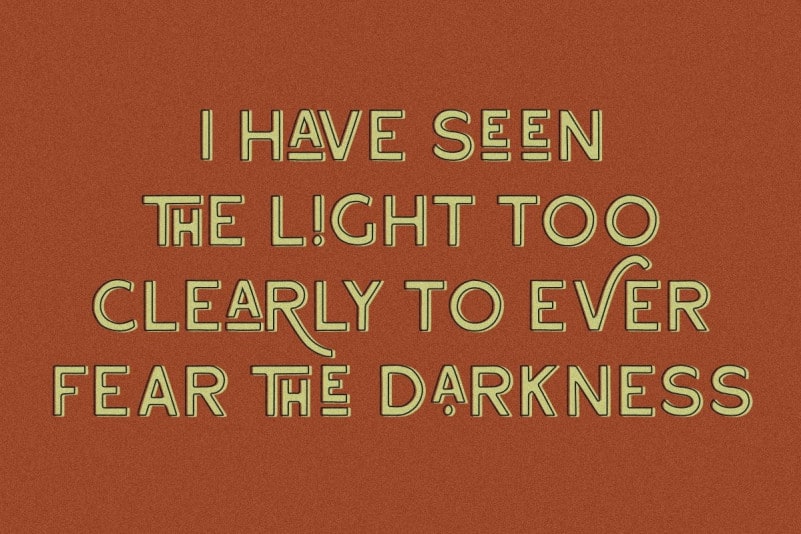
Reliva Sans Serif Font
Reliva Sans Serif Font is a delicate, elegant and flowing handwritten sans serif font. This typeface comes with many alternates and ligatures to make this font unique. There are also 6 high quality illustration that comes with this font! Add it to your most creative ideas and notice how it makes them come alive! Reliva is just the perfect font to make logotype, branding, packaging, and quotes.